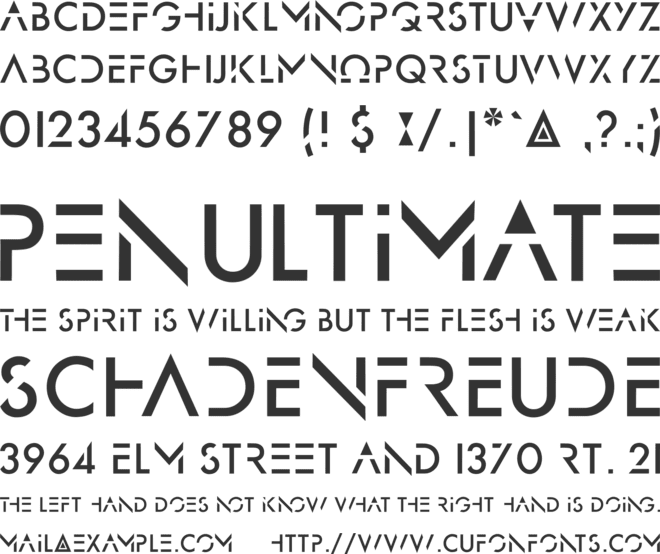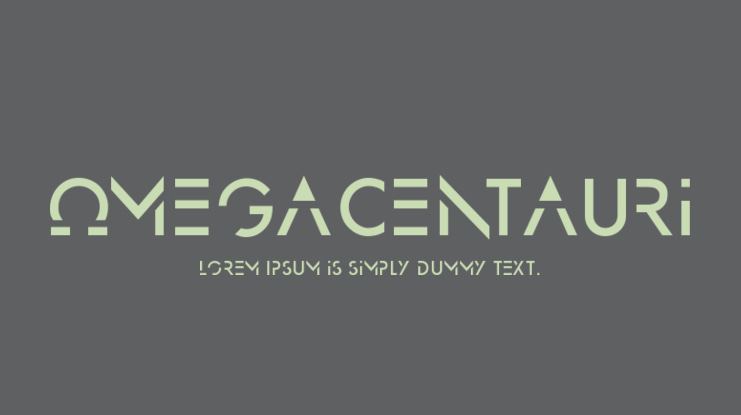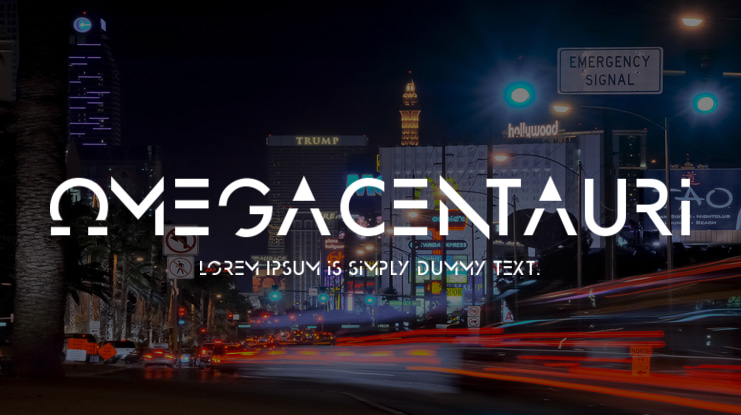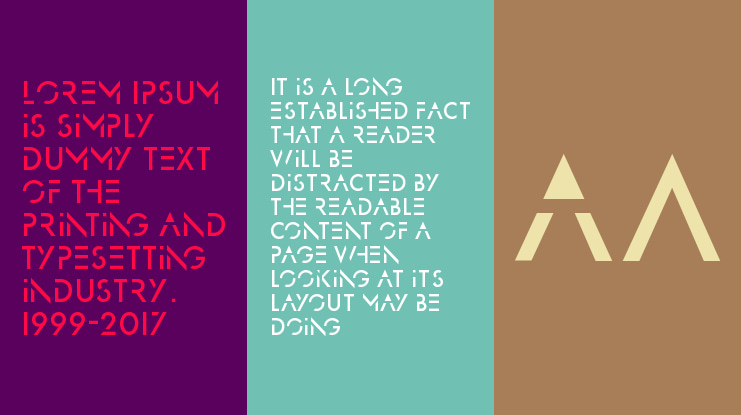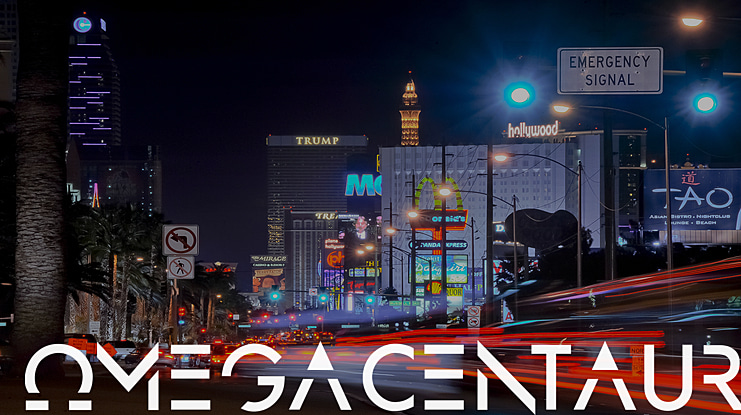
OmegaCentauri Font
Omega Centauri is a display, futuristic font, a spin off of the “Alpha Centauri” Font: https://www.fontspace.com/alpha-centauri-font-f40390
JoannaVu